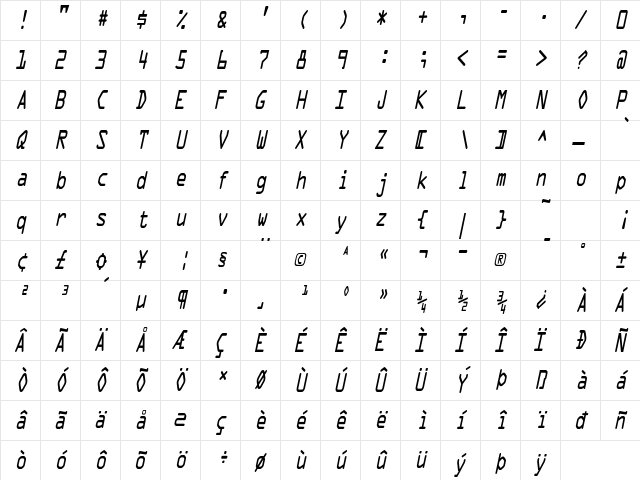
MicroscanACondensed Oblique
MicroscanACondensed offers clean, dependable letterforms without strong stylistic allegiance, making it a practical choice for designers who need flexibility. The slanted form adds forward momentum and visual energy. Its narrow stance lets it pack a punch even in space-constrained designs.
Pro Tip: Use MicroscanACondensed for emphasis, pull quotes, and subheadings where its slanted energy can add rhythm to the layout.